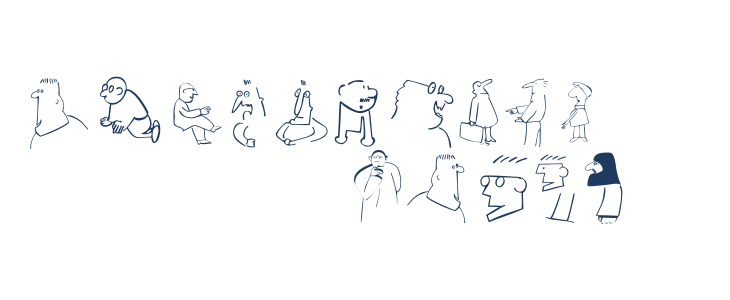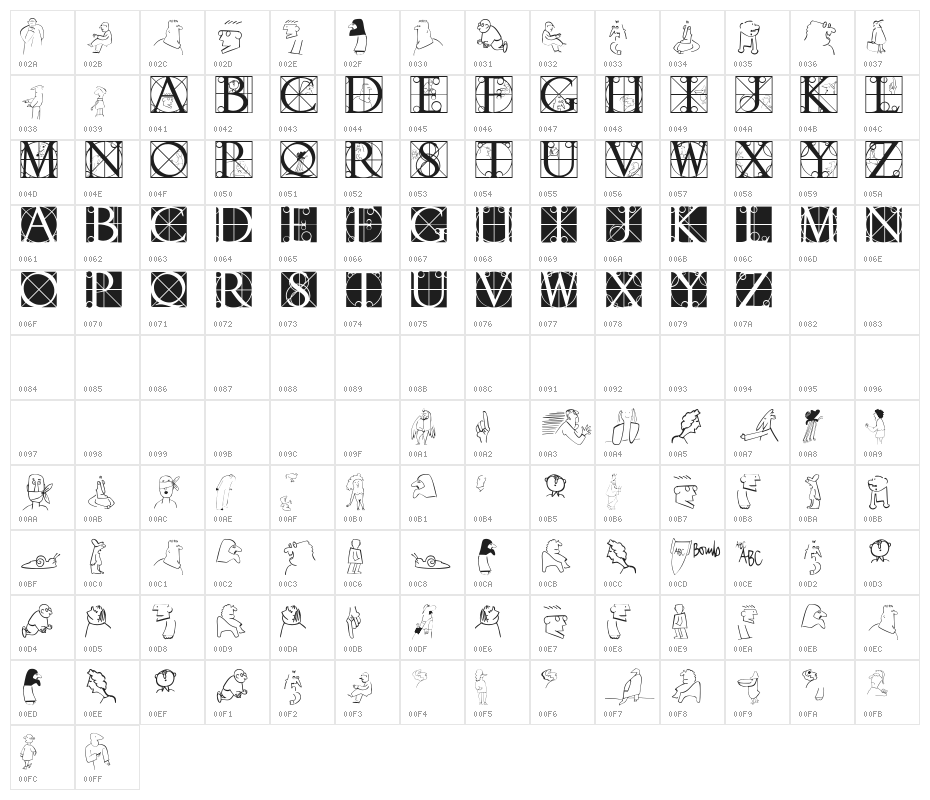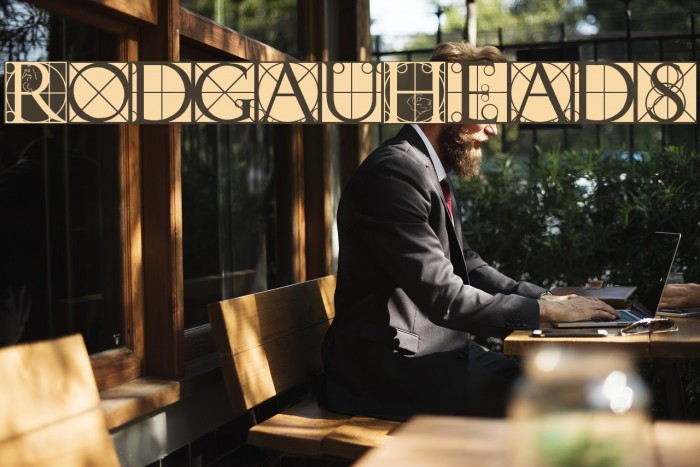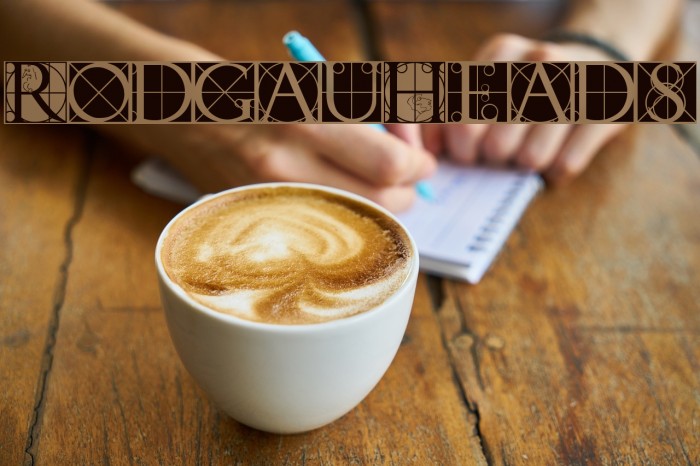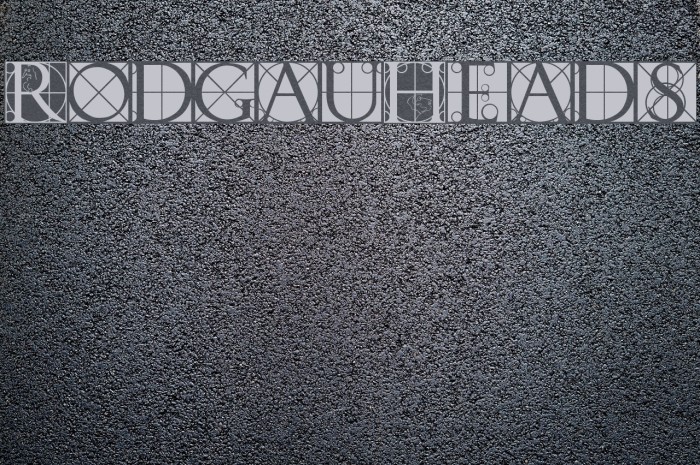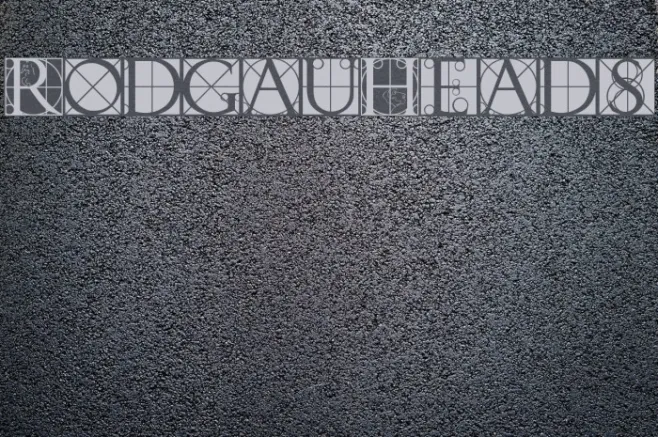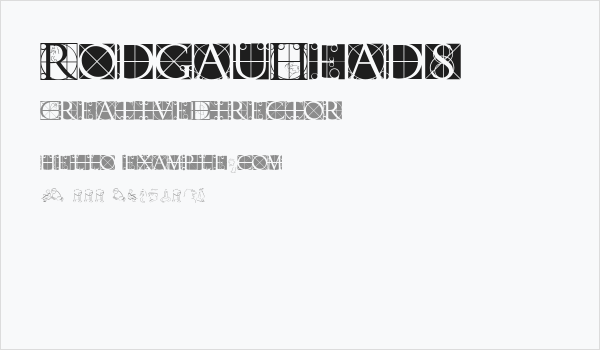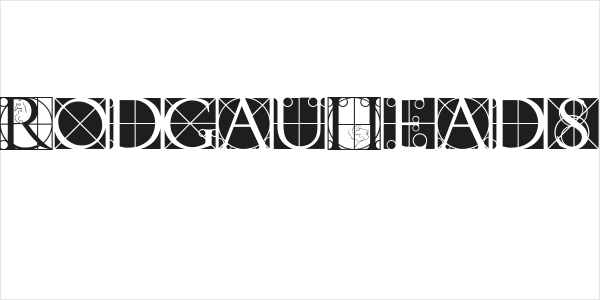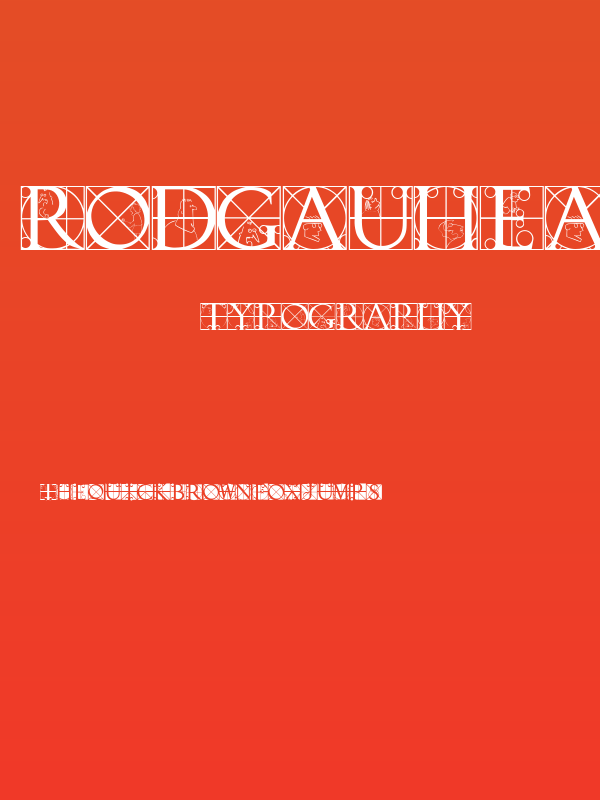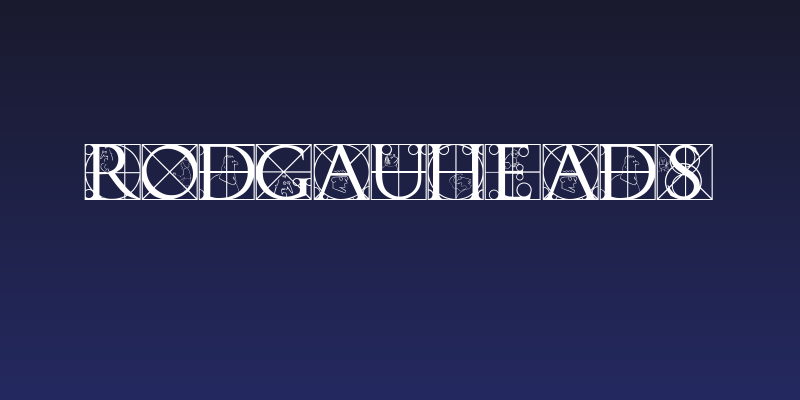
RodgauHeads Font
This font is a highly decorative and artistic typeface, featuring intricate patterns and whimsical illustrations within each letterform. The uppercase letters are designed with a playful and imaginative style, incorporating abstract shapes and figures that create a unique visual experience. The characters are enclosed within square frames, adding a structured yet dynamic feel. The font is bold and eye-catching, making it suitable for creative and unconventional projects. Its distinct style is reminiscent of modern art, with a touch of humor and eccentricity.
Overall StyleModern, Artistic
Proposed ProjectsIdeal for artistic posters, creative branding, unique invitations, and any project requiring a bold and imaginative touch.